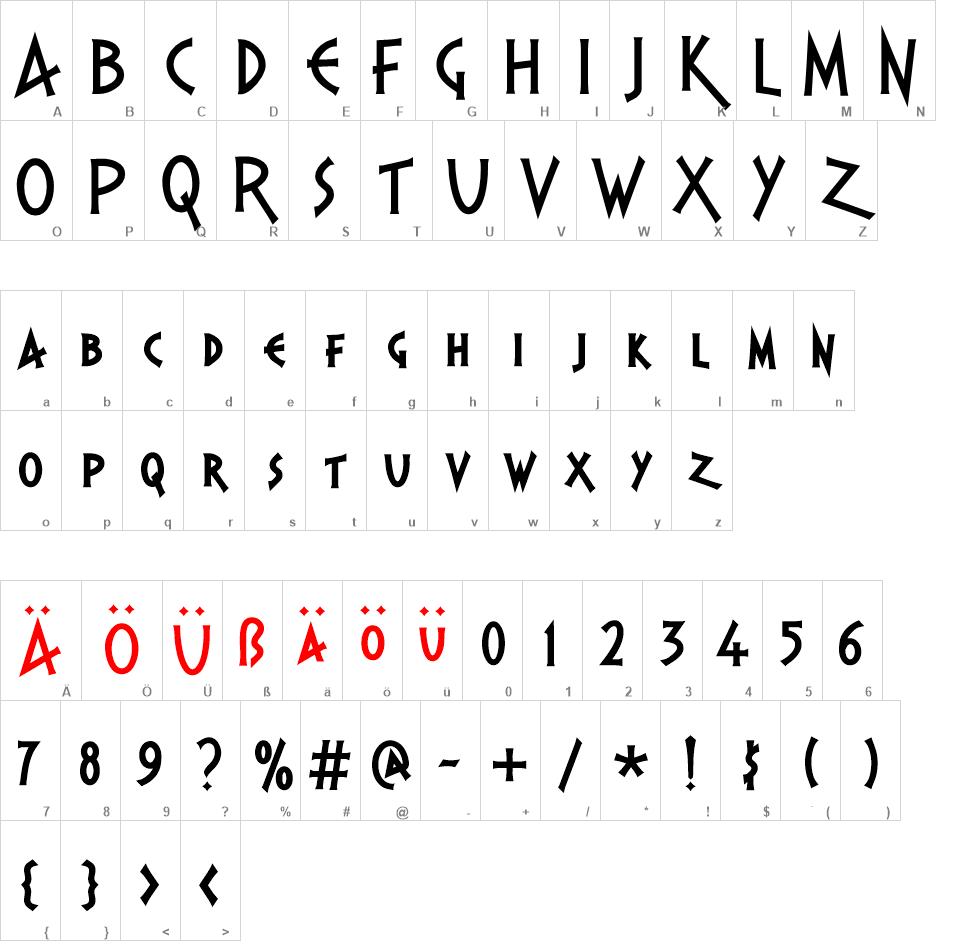
PR Agamemnon
PR Agamemnon font
PR Agamemnon
Agamemnon
So far, one of my most popular fonts has been Herakles, with the look os a hastily made Etruscan inscription. In the same vein, I offer another font named after a Greek hero: Agamemnon.
This font is somewhat more refined, with the capitals and small letters being made with the same stroke thickness but with a size ratio of 5 to 8, similar to the so called "Golden Section" .
In addition to all accented characters for West-European languages, I have also included a full set of Greek characters in this font.